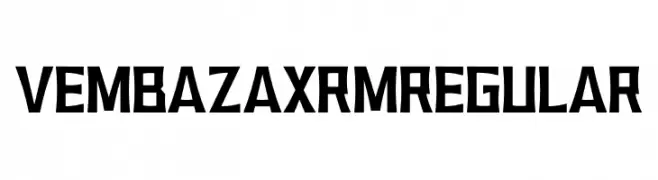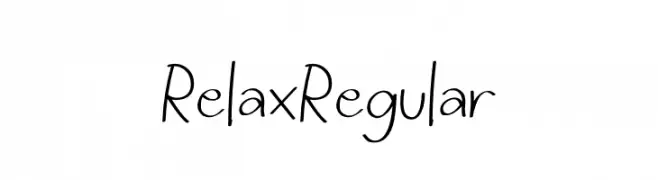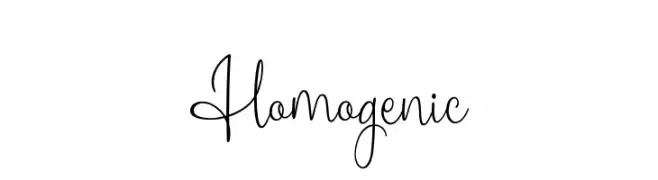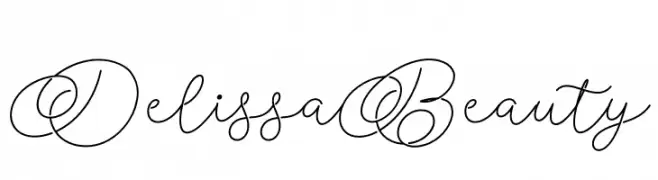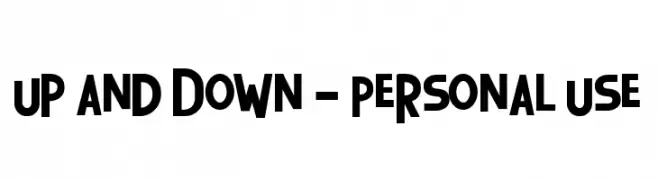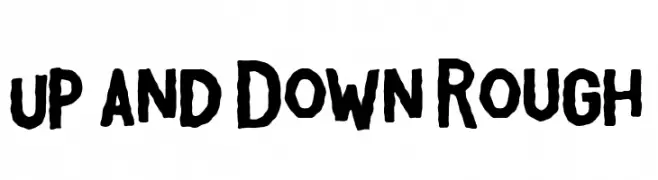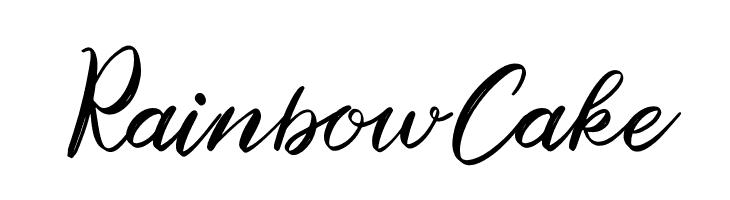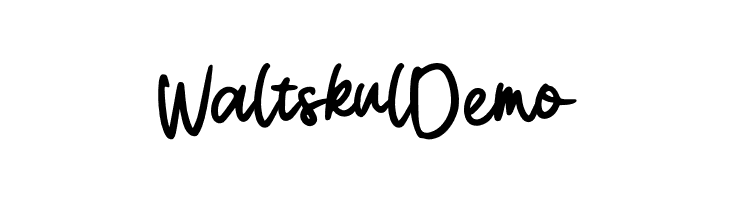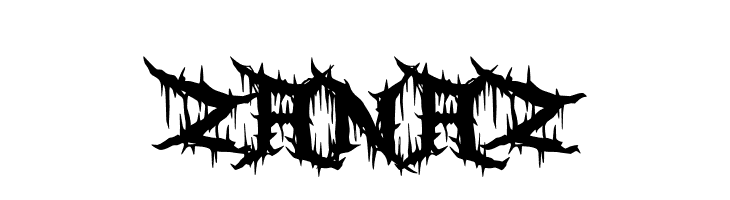
A bold, angular font with a geometric and striking design.
A casual handwritten font with smooth, flowing lines and a playful, relaxed style.
An elegant and flowing script font with ornate uppercase and graceful lowercase letters.
A graceful script font with flowing, cursive strokes and elegant curves.
A bold, playful font with a modern and quirky style.
A bold, hand-drawn font with an organic, playful style.
A lively, flowing script font with smooth, cursive strokes.
A modern, elegant script font with flowing, cursive characters.
A geometric, modern font with clean lines and a structured appearance.
A flowing, cursive font with elegant, interconnected letters and a modern calligraphic style.